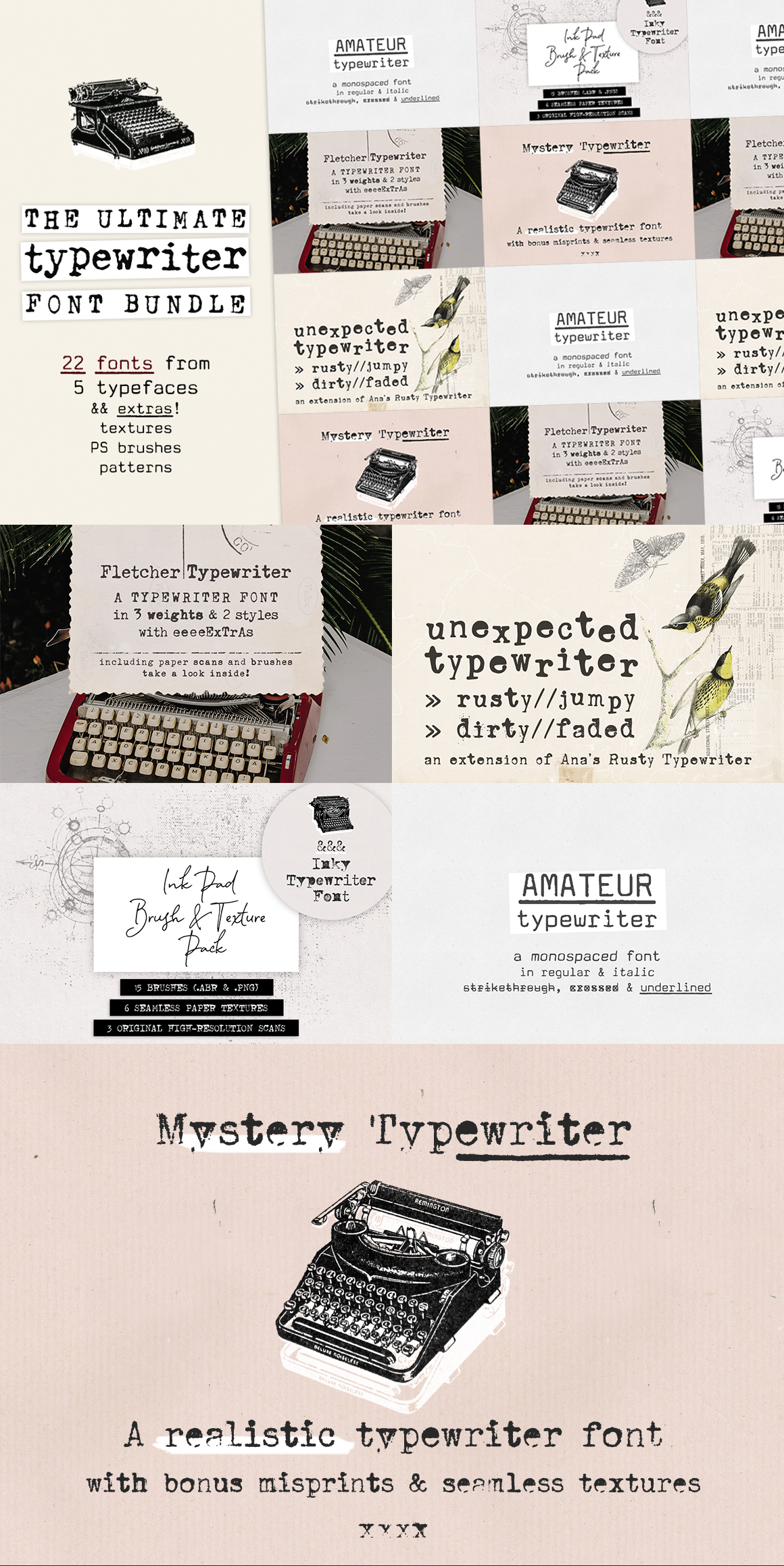
This bundle includes all types of typewriter fonts: from sans to serif, from very legible to grungy, from hand-drawn to realistic. They include a bunch of Open Type features, such as contextual alternates and ligatures, that make them super fun to use and realistic.
Use this set in any designs that needs a vintage touch. Use it in long or short texts, in digital collages, branding and packaging, social media posts, logotypes, etc.
Included in this bundle: